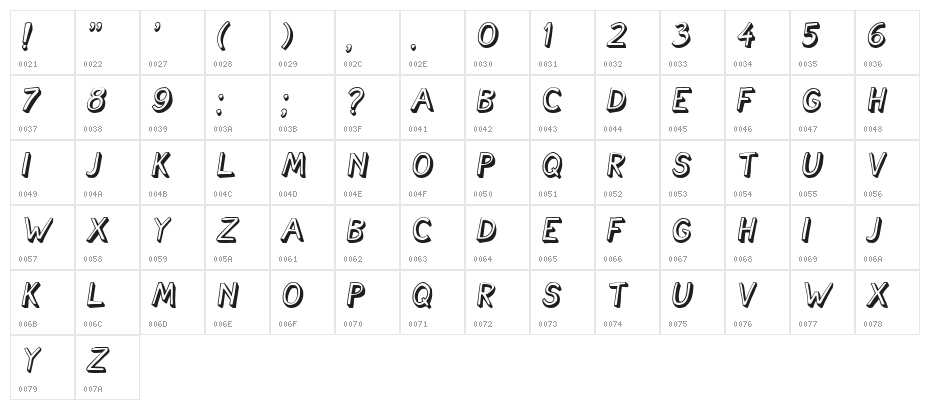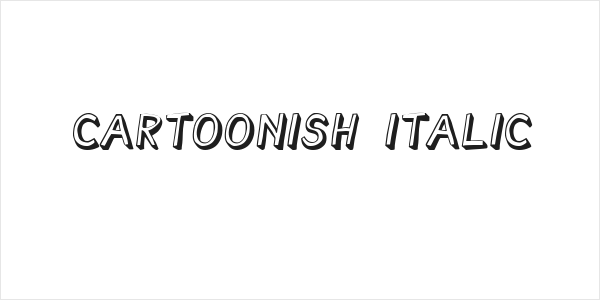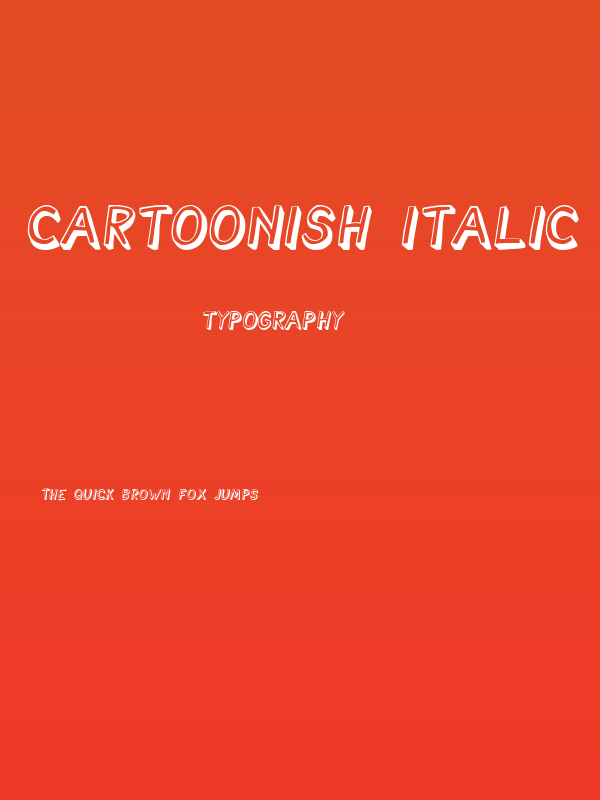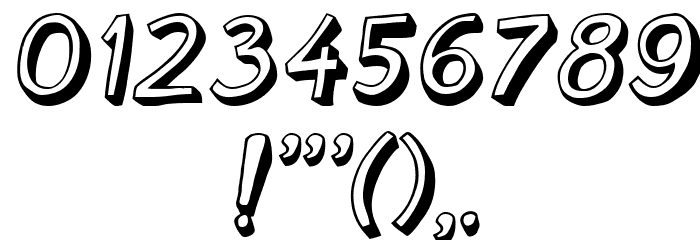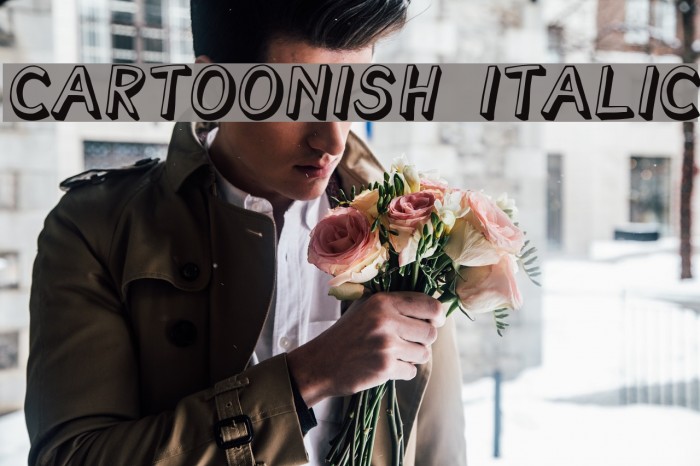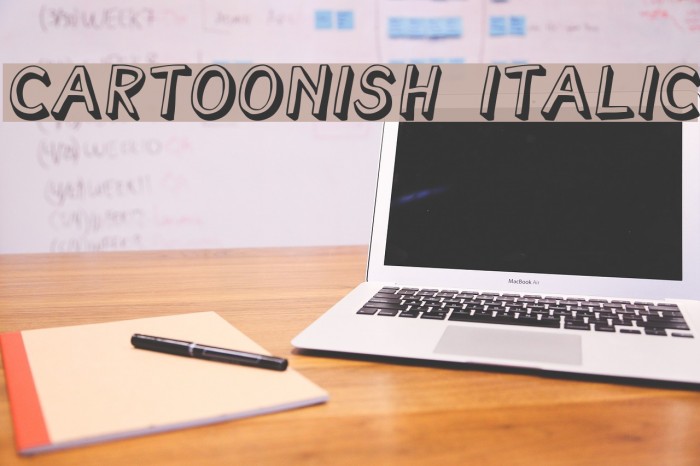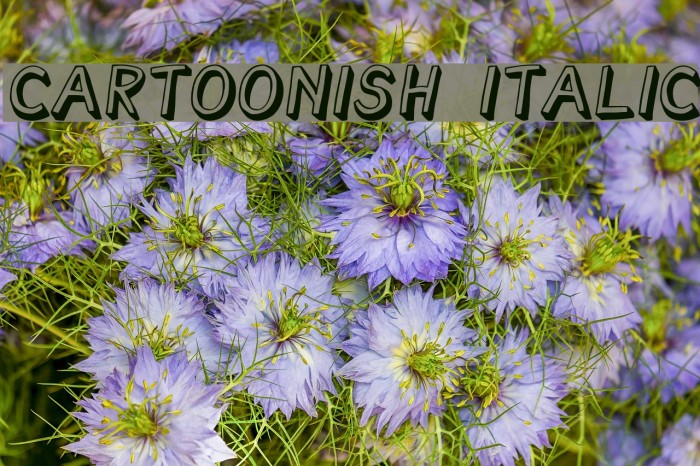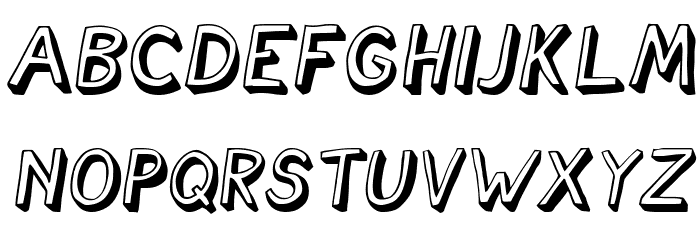
Cartoonish Italic Font
Cartoonish Italic Description
This playful and dynamic font features a cartoonish style with a bold, italicized slant. The characters are outlined with a thick black shadow, giving them a three-dimensional appearance that pops off the page. The uppercase and lowercase letters maintain a consistent style, with rounded edges and a slightly exaggerated form that enhances their whimsical nature. The numerals and special characters follow the same design principles, ensuring a cohesive look across all elements. This font's unique style is perfect for projects that require a fun and engaging visual impact.
| Overall Style | Playful, Cartoonish, Dynamic |
| Proposed Projects | Ideal for children's books, comic strips, playful branding, and eye-catching posters. |